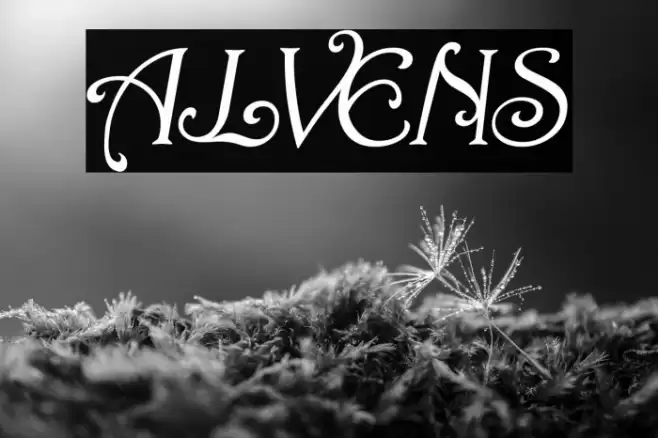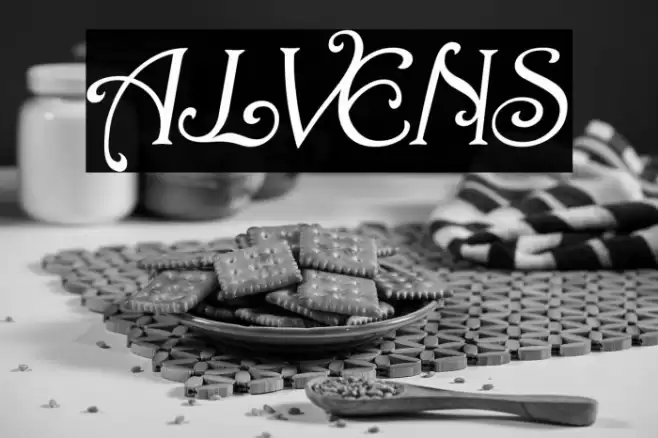
ALVENS Font
ALVENS Description
This font features an elegant and decorative style with a distinct flair in its design. The uppercase letters are characterized by their ornate swirls and curves, giving them a sophisticated and artistic appearance. The lowercase letters maintain a similar decorative quality, with unique loops and embellishments that add to the font's charm. The numerals are equally stylized, incorporating the same flowing lines and curves. Special characters are designed with a consistent decorative theme, enhancing the overall aesthetic. This font is ideal for projects that require a touch of elegance and creativity.
An elegant and decorative font with ornate swirls and curves from Uncategorized fonts.
- Proposed Projects: Ideal for wedding invitations, greeting cards, branding, and decorative headlines.
- Use Case: Headlines, Logos, Invitations